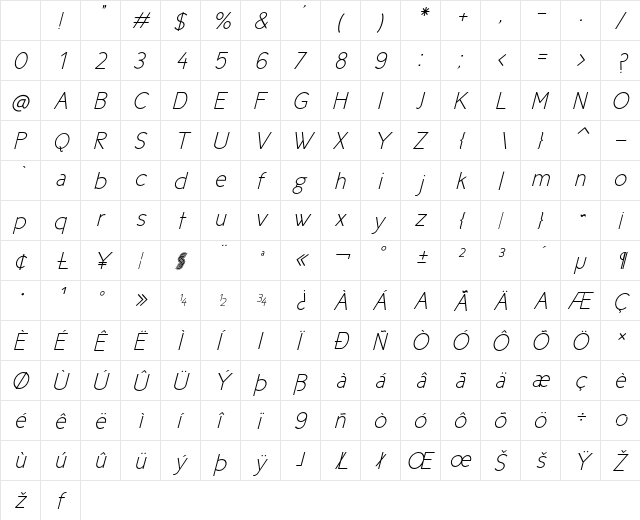
Complete New Cicle Fina Italic glyph index. Displaying only characters natively supported by New Cicle Fina Italic font.
New Cicle is a composed and adaptable typeface that performs quietly and consistently across a wide range of design contexts. The slanted form adds forward momentum and visual energy.
Pro Tip: Use New Cicle for emphasis, pull quotes, and subheadings where its slanted energy can add rhythm to the layout.